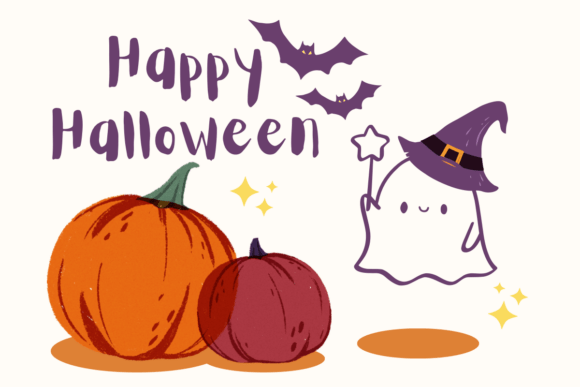
Halloween Cute Ghost Font
Halloween Cute Ghost Font is an adorable dingbat font that brings a playful and whimsical twist to your creative projects.
Featuring a delightful collection of hand-drawn ghost characters, each with unique personalities and charming details, this font is perfect for adding a fun and lighthearted vibe to your designs. Its clean, simple line art makes it versatile for both digital and print use, from Halloween party invitations and social media graphics to stickers, labels, and custom merchandise.
Halloween Cute Ghost’s expressive icons balance cuteness and creativity, making it a go-to choice for designers looking to infuse their work with a quirky, festive spirit.